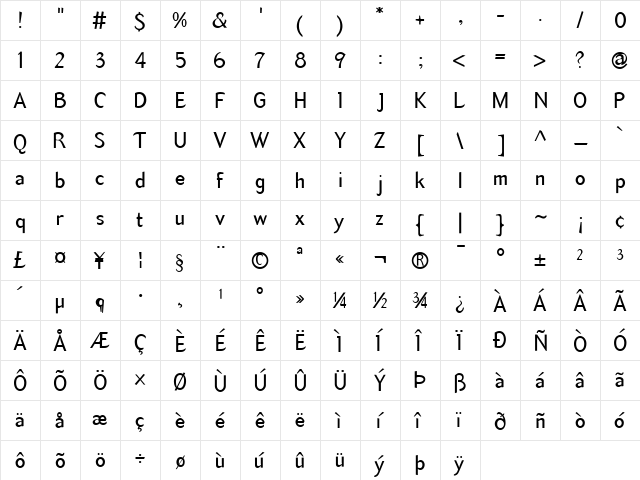
TemaCantanteSans Regular Font Preview
TemaCantanteSans Regular
TemaCantanteSans Regular Font Details
Design Context for TemaCantanteSans Typeface
TemaCantanteSans takes a measured approach to typography — its balanced proportions and neutral character make it a reliable workhorse for both digital and print work.